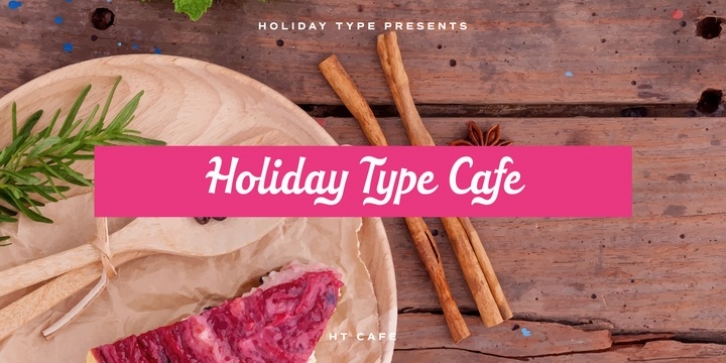
HT Cafe was designed by Ryoichi Tsunekawa and published by Dharma Type. HT Cafe contains 1 style.
This connected and brush script is very impressive, but is also legible, so it is the best for package of sweets or breads, shop card, shop front and so on.
Holiday Type Project offers retro hand drawing scripts. Inspired by retro script on shopfront lettering, wall paint advertisements in Italy around 1950s. Check out the script fonts from Holiday Type!